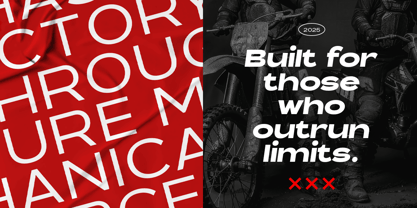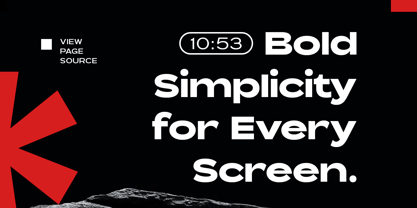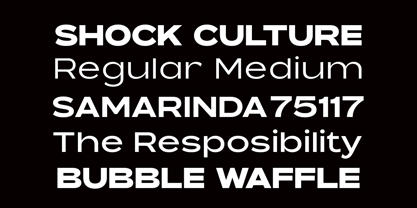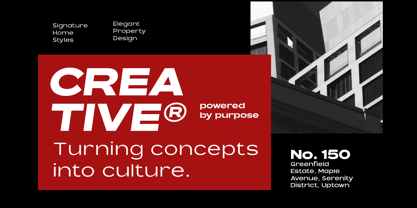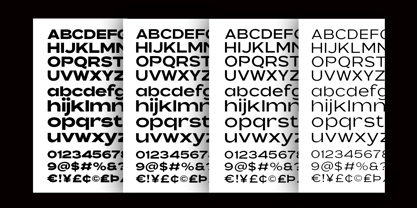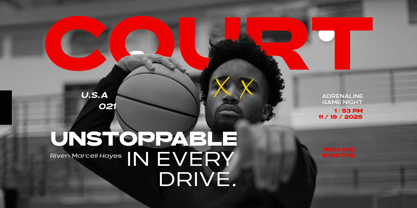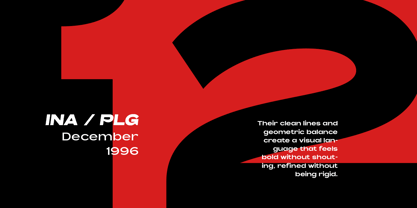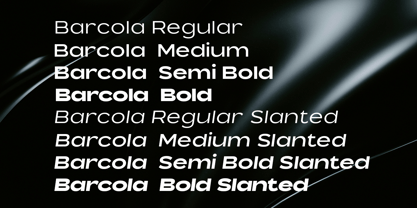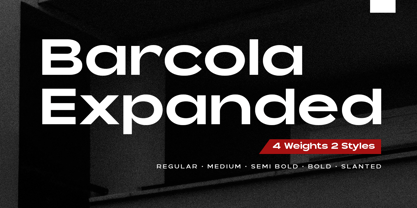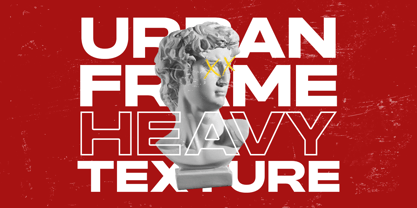
Barcola Expanded
The Barcola Expanded Font Family was designed by Ahmad Ramzi Fahruddin and published by Arterfak Project. Barcola Expanded contains 8 styles and family package options. More about this family
Barcola is an extended, contemporary-style font that features unique characteristics, making it perfect for creating impactful statements. Available in four distinct weights, this font is versatile for various applications, particularly the bold weight, which offers a strong yet minimalist impression in your designs. Barcola excels in both text and display contexts, allowing for playful use across magazines, posters, logos, websites, cards, branding, and more. Its modern aesthetic and adaptability make it an excellent choice for designers seeking to enhance their projects with a stylish and functional typeface.